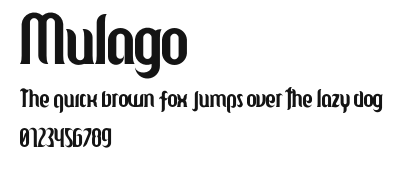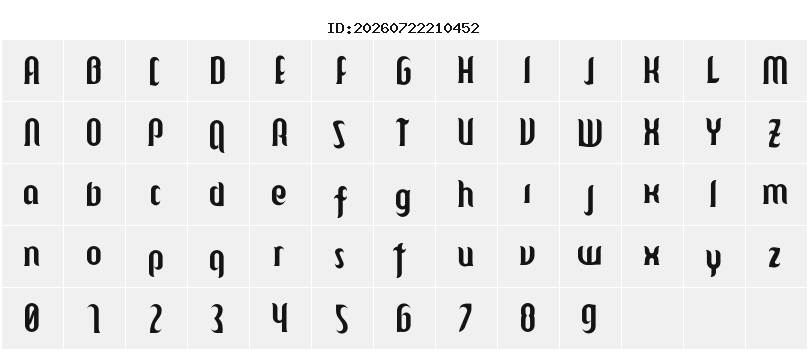
• Font Name: Mulago
• Full Font Name: Mulago
• Designer: Alberto Villanueva
• Manufacturer: Alberto Villanueva
About Mulago.otf
Mulago.otf is a modern, elegant sans-serif font designed for ultimate readability and visual harmony. Perfect for branding, headlines, web design, and print materials.